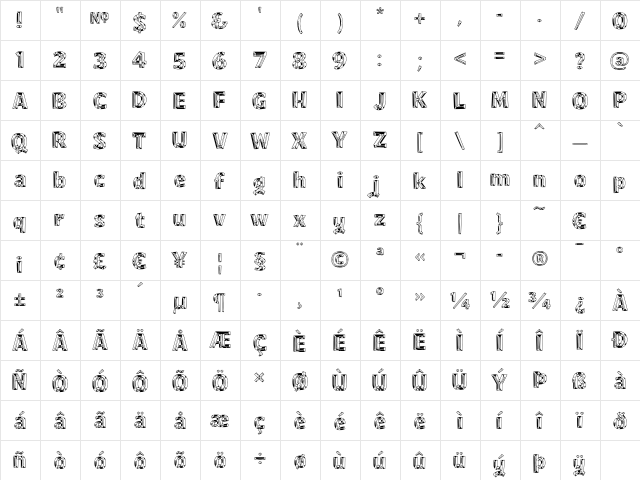
TownSquare 'Chromed' Regular
Design Context for TownSquare 'Chromed' Typeface
TownSquare 'Chromed' is a composed and adaptable typeface that performs quietly and consistently across a wide range of design contexts.
Pro Tip: Pair TownSquare 'Chromed' with a font of contrasting weight or personality to build a more expressive typographic hierarchy.